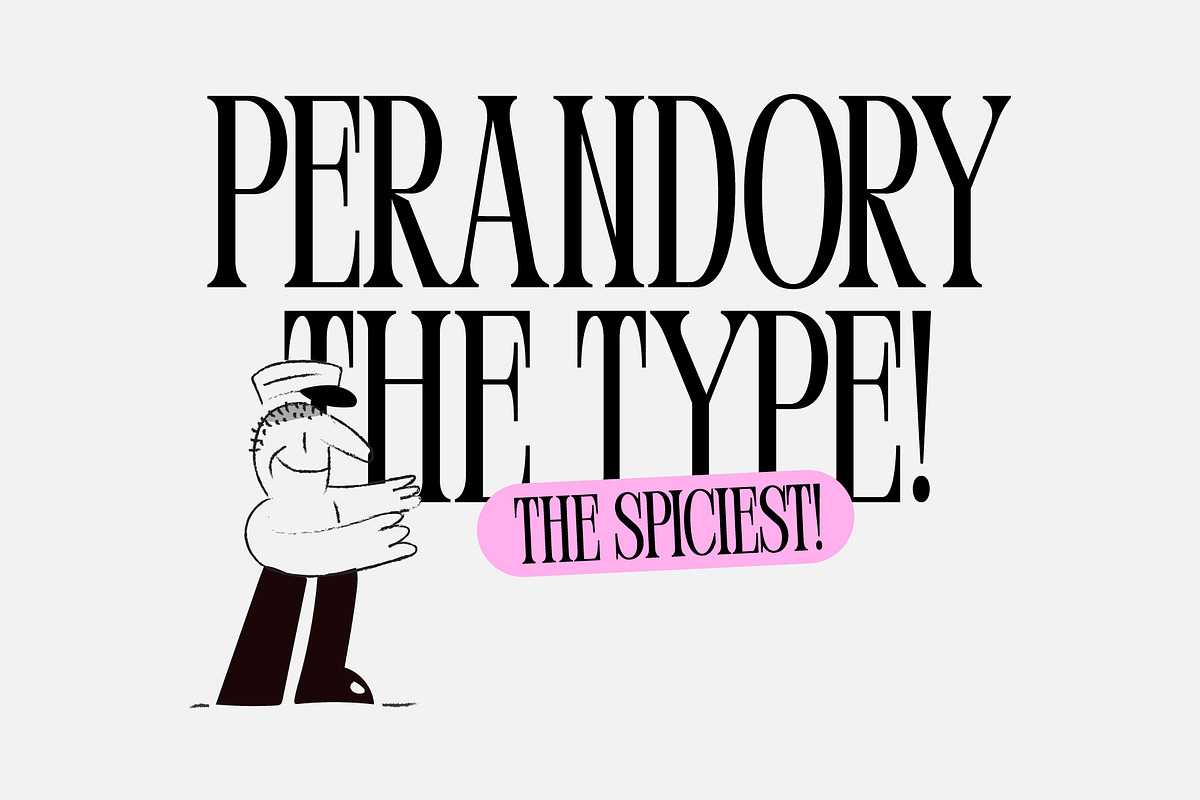
Step into the future of typography with Perandory – a daring new typeface that defies convention. This isn’t just a font; it’s a visual paradox brought to life. Merging the raw, characterful essence of 19th-century Albanian lettering with sharp, modernist cuts, Perandory stands at the electrifying intersection of past and future. It’s a statement of identity, a celebration of cultural roots, reimagined for a contemporary era. With a striking, asymmetric structure and unexpected angular flourishes, Perandory doesn’t follow trends—it defines them. Use it to build a brand with soul, craft a logo with character, or make a bold statement in editorial design.
Architect of Contrast: The Design Philosophy Behind Perandory
Perandory is built on a philosophy of intentional tension. The foundation draws deep from the organic, handcrafted rhythms of traditional Albanian craftsmanship. You’ll see it in the uneven stroke weights and the subtle, almost improvisational curves. But then, sharp, surgical angles and abrupt, geometric turns slice through that organic flow. This juxtaposition isn’t accidental—it’s the core of Perandory’s power. It evokes a sense of timelessness, as if ancient inscriptions were forged in a digital future.
- Vintage Albanian Inspiration: The font’s soul is rooted in historical lettering styles from Albania, capturing the spirit of hand-carved stone and rustic signage.
- Modernist Edge: Sharp, high-contrast strokes and deliberate angularity give Perandory a bold, futuristic confidence and a distinctive, almost architectural presence.
- Hybrid Identity: This is not a retro pastiche nor a cold, sterile modernist font. Perandory exists in a unique space where tradition is respected, yet deliberately challenged.
- Upper Case-Only Power: Perandory’s design is optimized for uppercase letters, emphasizing its strong, monolithic impact. Every letter commands the space it occupies, making it ideal for headlines and impactful displays.
- Two Distinct Styles: Available in both Regular and Condensed forms, giving you control over density and focus. Choose Regular for a classic, robust feel or Condensed for maximum visual punch in tight spaces.
Where Perandory Makes Its Mark: Powerful Design Applications
Perandory is not for subtle, background text. It is a lead voice. It thrives where your design needs to be unforgettable.
- Brand Identity & Logo Design: Create a logo that tells a story. Perandory conveys heritage, strength, and a unique aesthetic, perfect for creative agencies, boutique products, or cultural initiatives.
- Editorial & Magazine Covers: Transform a cover into a work of art. Use Perandory to title features, introduce artists, or highlight major stories with visual weight and intrigue.
- High-Impact Visual Campaigns: From concert posters to film trailers, Perandory cuts through the noise. Its distinctive look makes your campaign instantly recognizable.
- Art & Design Projects: Pair Perandory with abstract illustrations, photo collages, or mixed-media pieces to create a cohesive, powerful visual narrative.
- Typography-Driven Packaging: Elevate a product’s presentation with a label or box featuring Perandory. It screams uniqueness and craftsmanship.
Style Mastery: Finding Your Perfect Perandory
Understanding the two available styles is key to unlocking Perandory’s full potential.
- Perandory Regular: The foundation of the family. Offers a balanced, spacious feel with ample negative space. Ideal for large-scale branding, magazine titles, and projects demanding a sense of grounded, classic authority.
- Perandory Condensed: A tighter, more aggressive form. Maximizes visual impact in limited spaces, such as social media graphics, short headlines, or side-by-side layouts. It packs a punch without sacrificing legibility.
Experiment with both. Use Regular for a bold, grounded look and Condensed for a sleek, urgent feel. The choice is yours, and it’s always impactful.